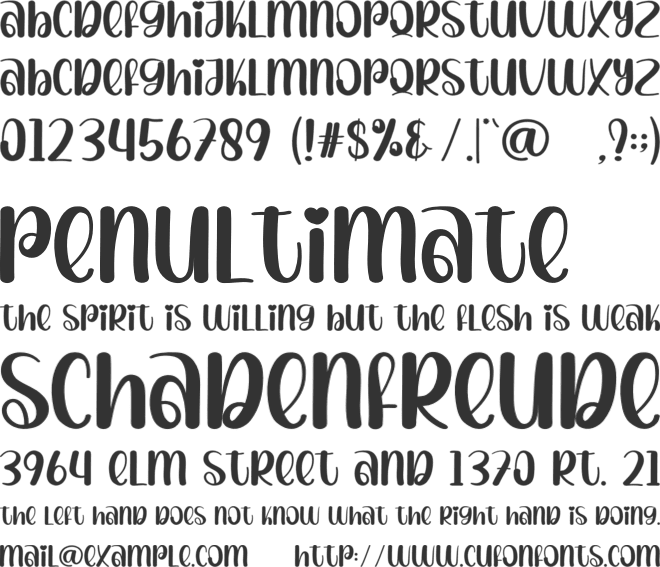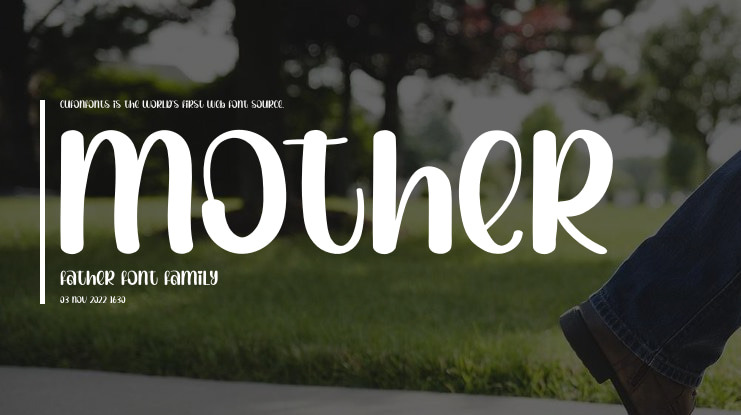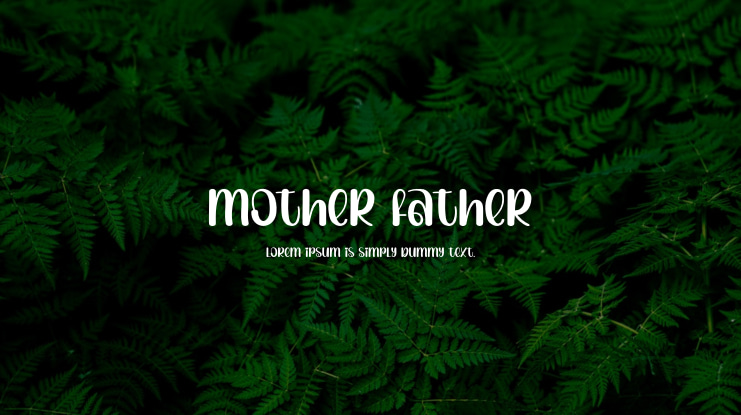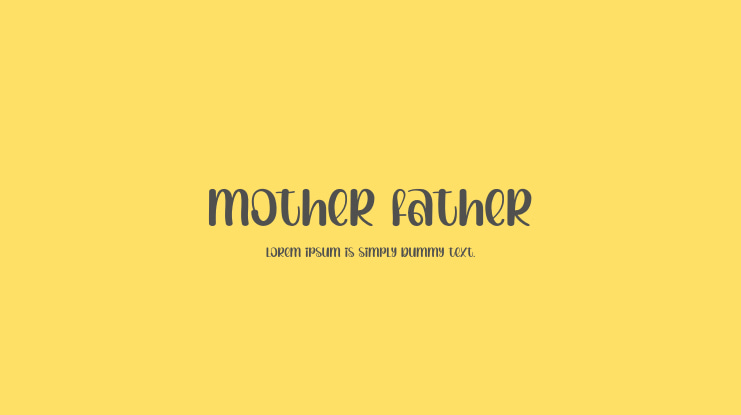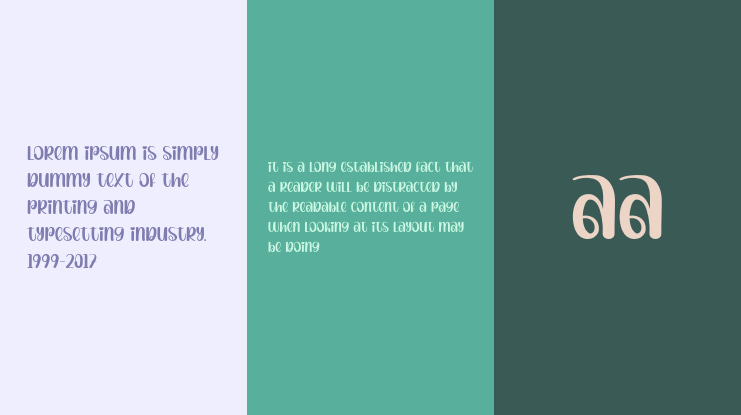
Mother Father Font
We offer special creative products designed to provide you with an exceptional experience. Our latest stylish fonts are ideal for various purposes such as wall displays, wedding invitations, social media logos, advertisements, product packaging, labels, photography, watermarks, invitations, stationery, and any project that demands elegant handwriting.